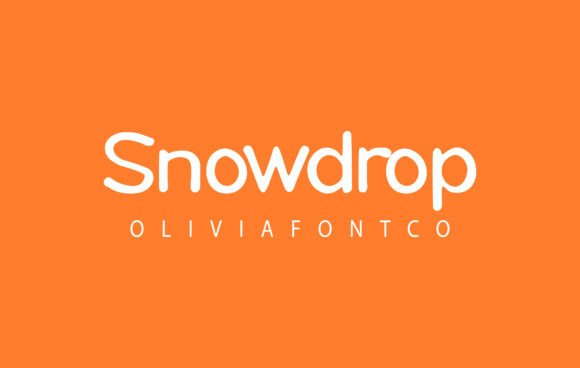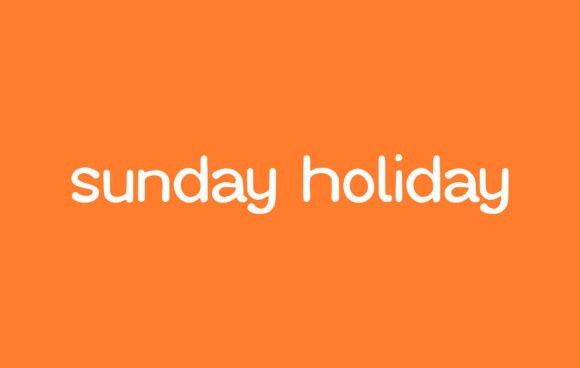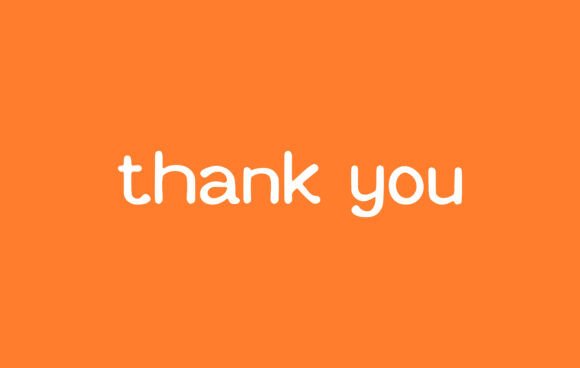
Snowdrop Font: A Cute Handwritten Font for Social Media Design
About the Snowdrop Font
Make a bold statement with Snowdrop Font, a powerful and memorable font. Snowdrop font is an authentic handwritten font with a romantic touch. Expertly designed to be a true favorite, this font has the potential to take your creative ideas to the highest level
Snowdrop Font Usage Examples
Snowdrop Font Example